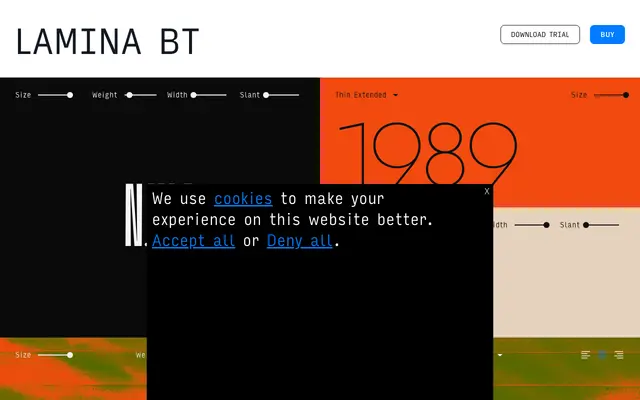
Lamina BT
A grotesque sans with condensed and extended width variants, a slanted cut, and a visual identity rooted in 1980s and 1990s hip-hop culture.
The family spans seven weights across condensed, regular and extended widths, supplemented by a slanted style, giving designers a broad range of display options within a single system. The demo text throughout the page quotes N.W.A, Wu-Tang Clan and Tupac, signalling a clear cultural reference point in late-20th-century American rap aesthetics. Latin Extended character coverage makes it viable across Western European languages.
A geometric-leaning grotesque with extended and condensed width variants and a slanted cut, placing it firmly in the display sans-serif grotesque tradition.